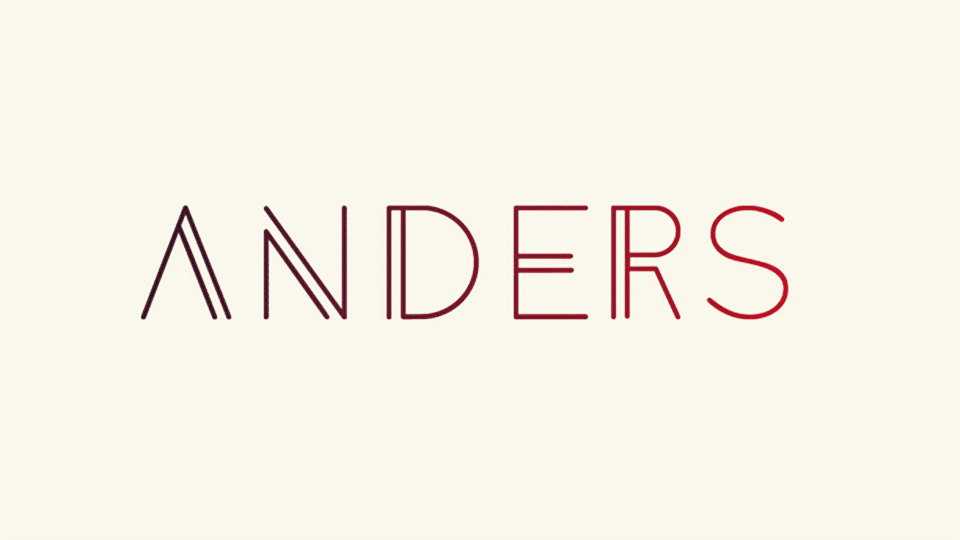
Download Anders font, a creative experimental typeface, inspired influences from modern font design, something very minimal and a little unique. It is perfect for logos, branding, posters, headlines, creative typographic projects.